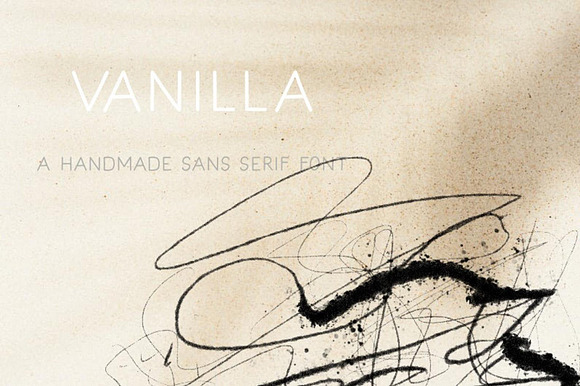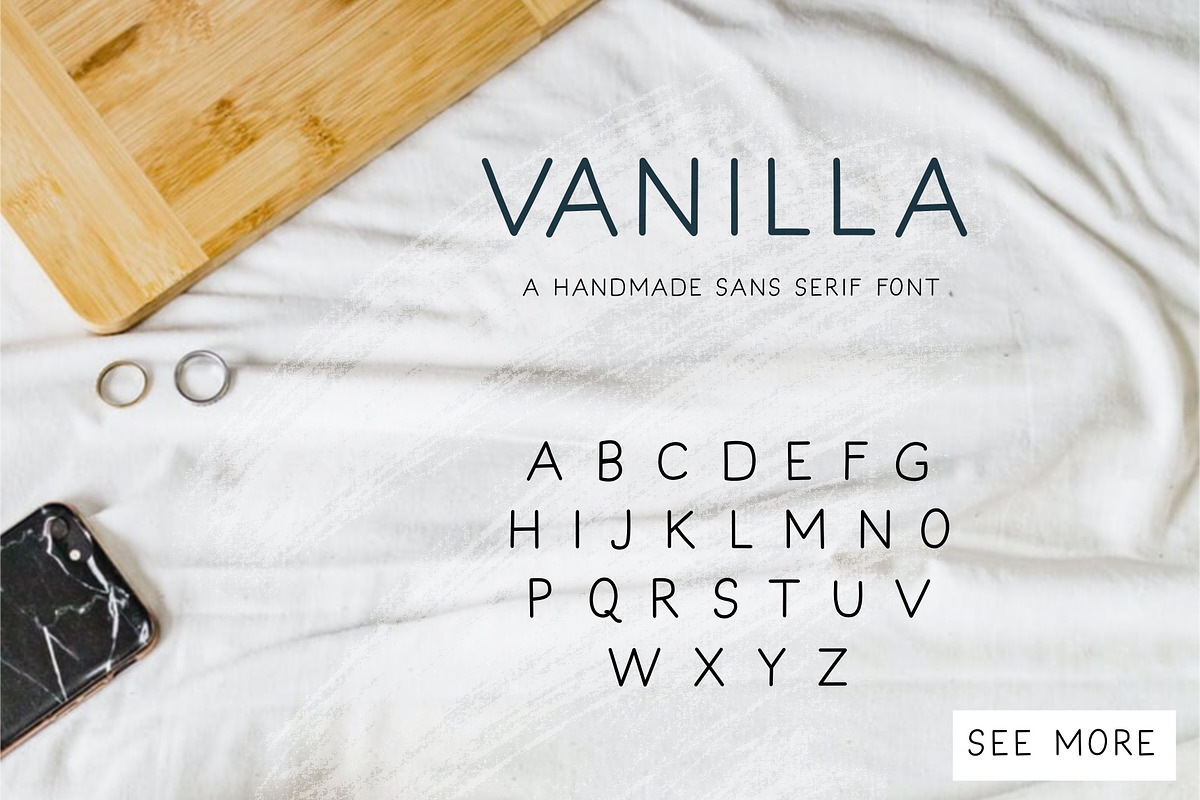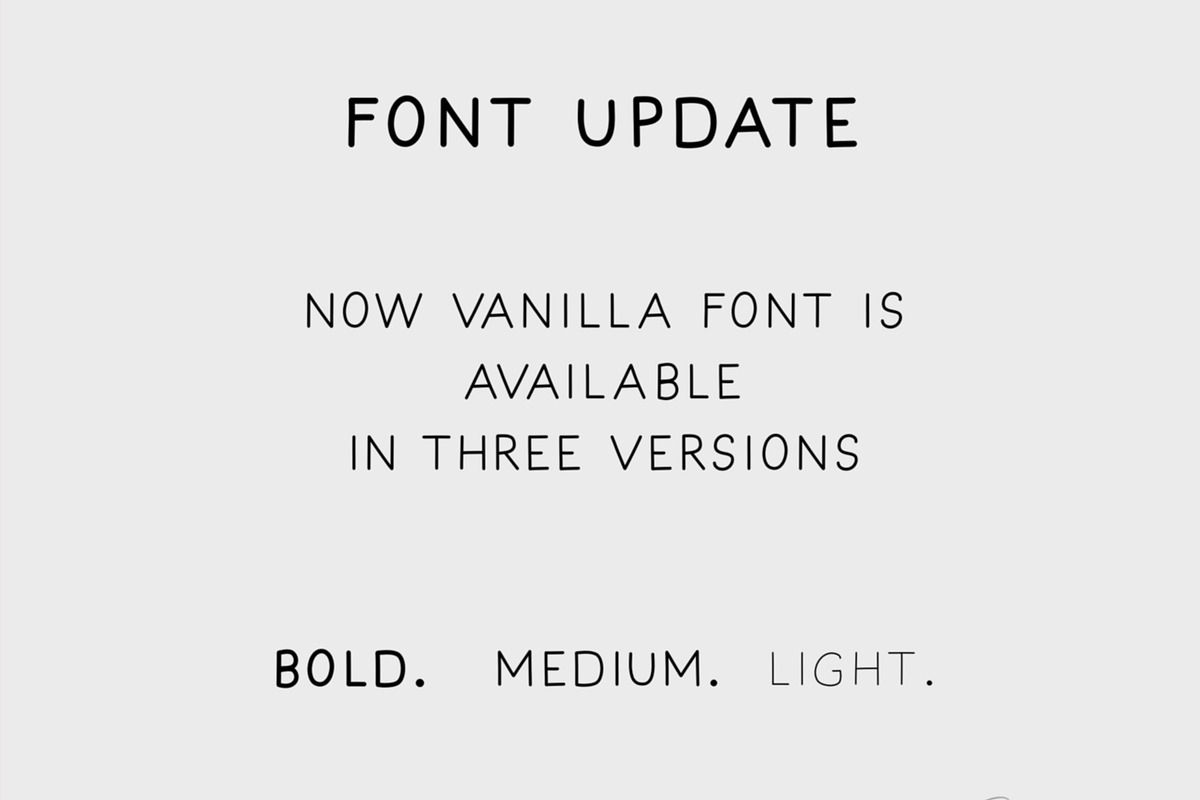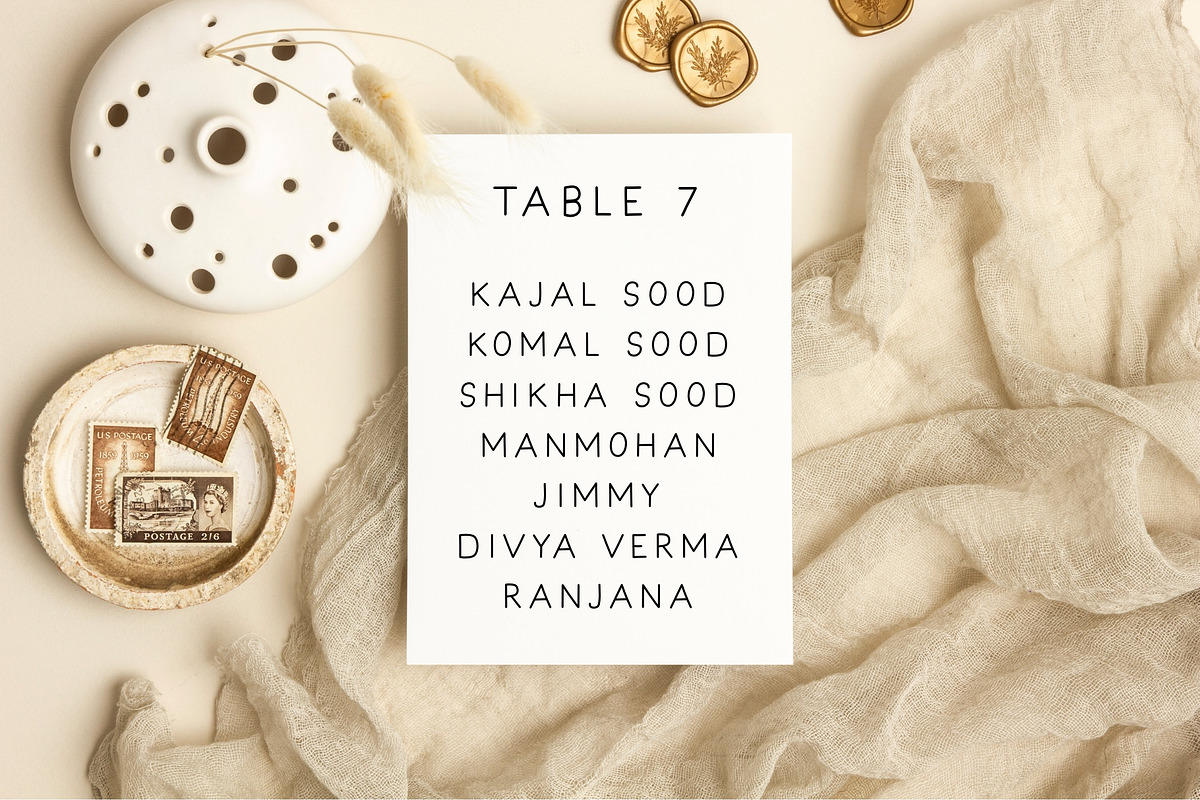
Vanilla - A handmade sans serif font
Vanilla is the all caps, minimalist, simple and versatile sans serif font!
This font is handmade. If you are a calligrapher like me, you can also pair this font with your calligraphy. I designed this font because I love to write in sans serif font to pair with my Calligraphy and now I can simply use Vanilla font.
Vanilla is perfect for: logos, branding, wedding invitations, business cards, greeting cards, posters, magazines, social media, planner prints and websites.